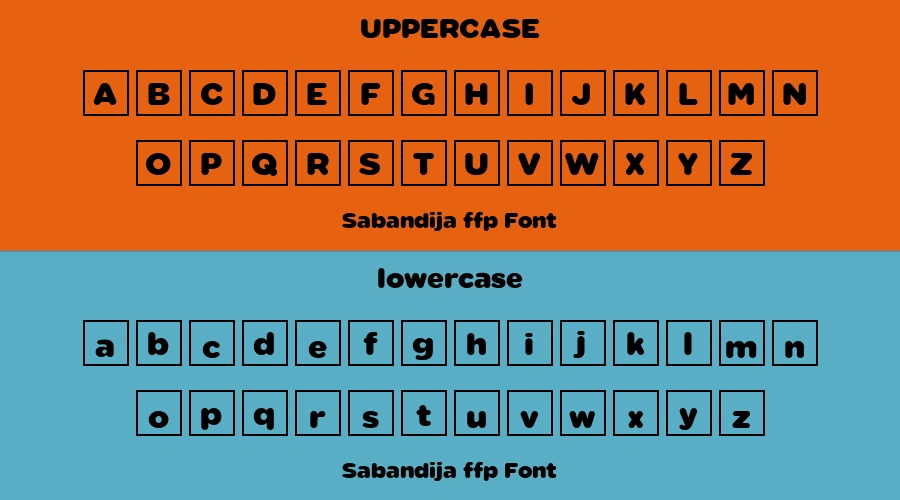
About Sabandija ffp Font
Sabandija ffp Font embodies typographic excellence through its masterful combination of geometric construction and consistency. Created for medical texts, this typeface delivers exceptional reliability and sophistication across all applications. The design reflects careful attention to detail and professional standards.
Advanced capabilities include distinctive bold expressions and versatile word-end alternates, giving designers creative control. When used in creative titles, Sabandija ffp Font exhibits remarkable memory recall. The harmonious balance between joint detail and scientific authority sets this typeface apart.